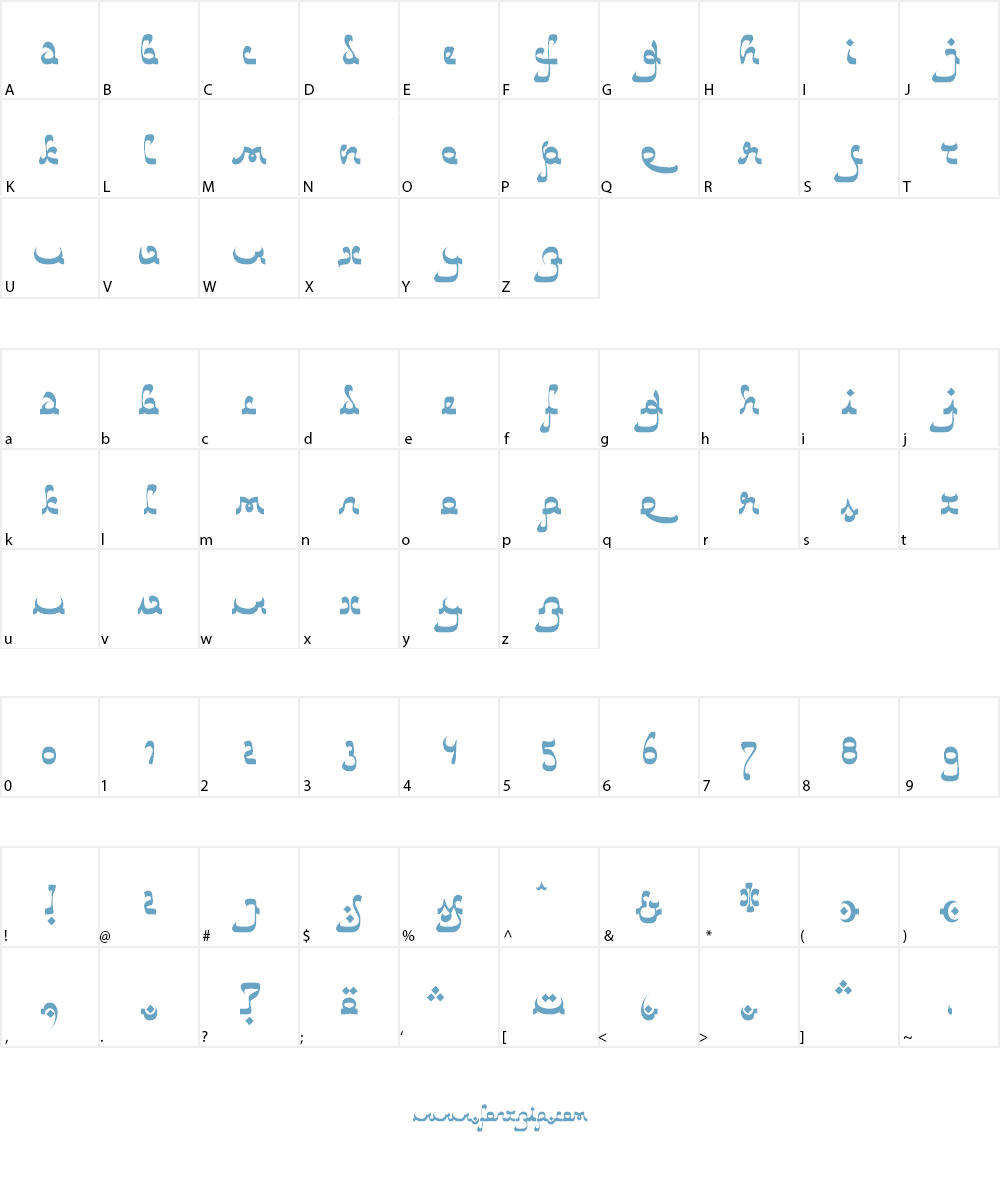
A highly decorative, if somewhat hard to decypher, arabic calligraphy imitation font, featuring initial, medial and final letter forms for optimal linking between letters, as well as ligatures, word terminators and ornamental accents. Works best with a Mac keyboard, but doesn't require one.